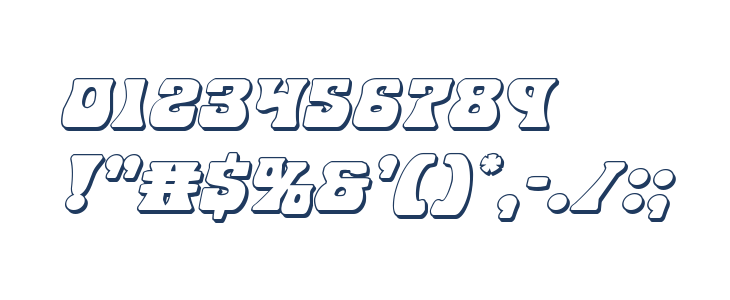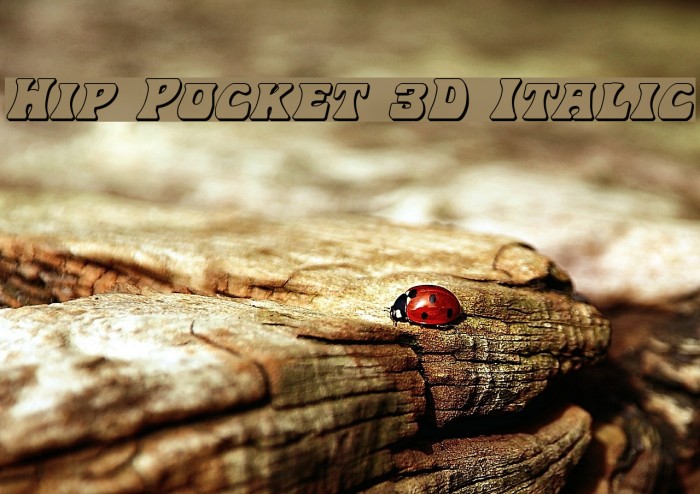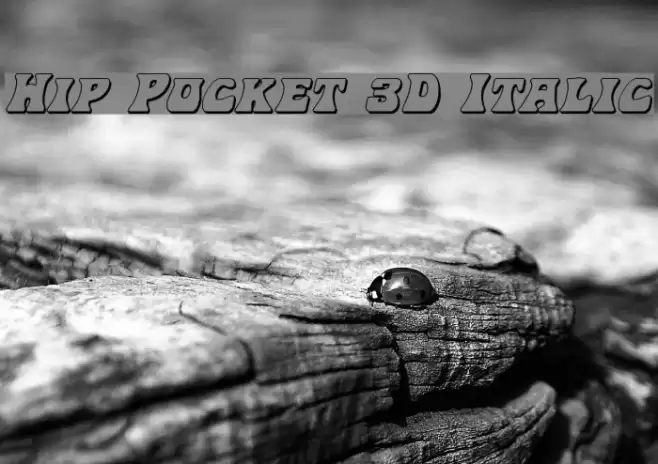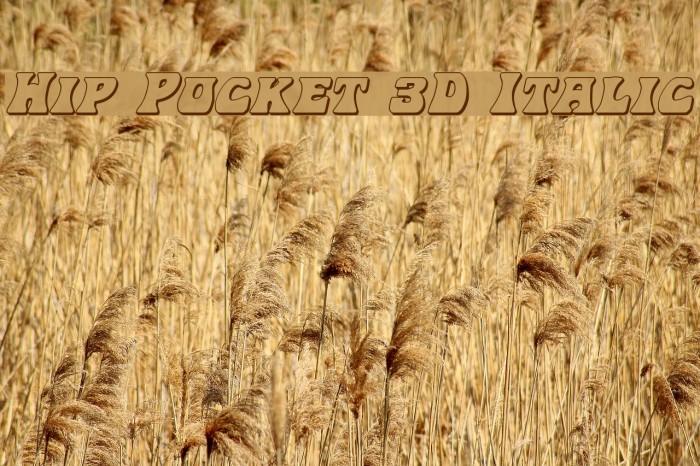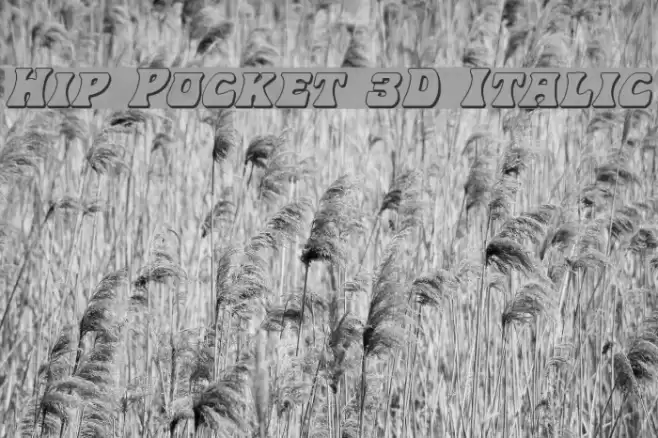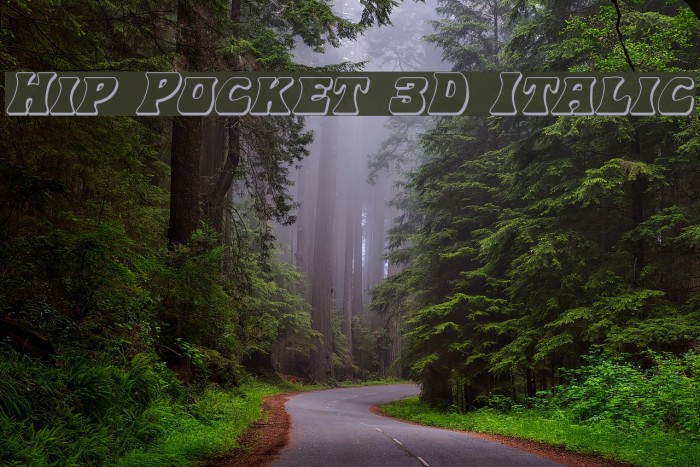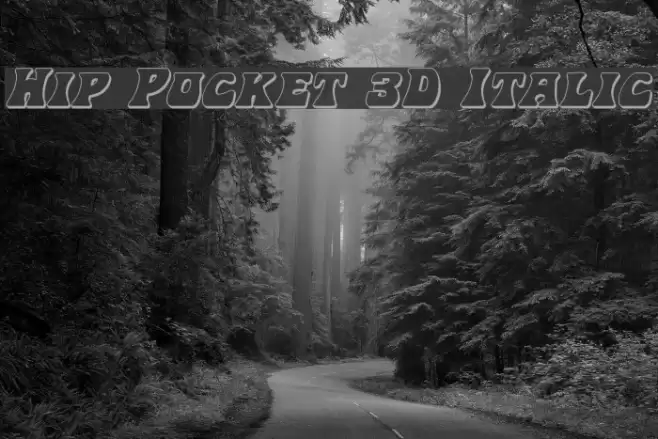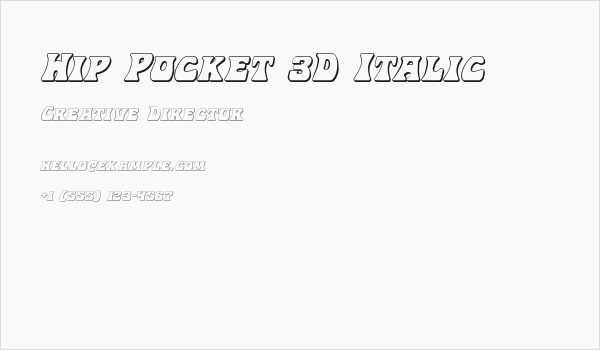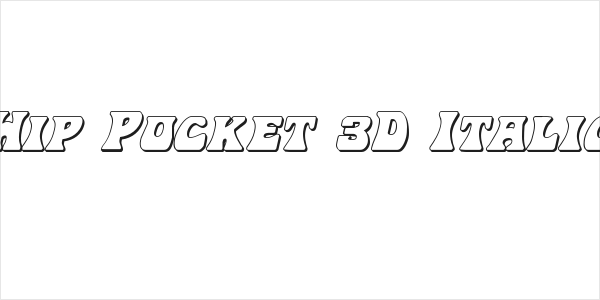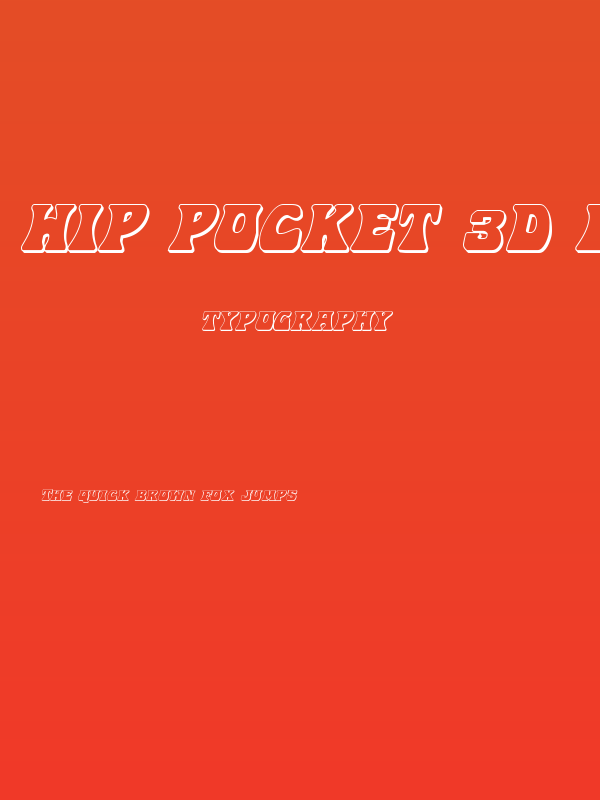
Hip Pocket 3D Italic Font
Hip Pocket 3D Italic Description
This font features a bold, three-dimensional appearance with a playful and dynamic style. The letters are outlined, creating a shadow effect that gives them a sense of depth and movement. The uppercase and lowercase characters maintain a consistent design, with rounded edges and a slightly condensed form. The numerals and special characters follow the same aesthetic, ensuring uniformity across all glyphs. This font is eye-catching and ideal for projects that require a fun and engaging visual impact.
| Proposed Projects | Ideal for posters, headlines, logos, and any design needing a fun, engaging look. |